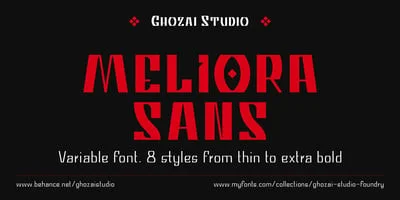
Meliora Sans Font
Meliora Sans Font is ideal for progressive organizations, continuous improvement consultancies, educational institutions, motivational speakers, self-development platforms, innovation companies, forward-thinking corporate brands, and aspirational lifestyle communications requiring growth-oriented messaging.
What makes Meliora Sans Font exciting is its aspirational excellence that embodies the pursuit of betterment and continuous improvement through refined, forward-moving letterforms. This inspiring typeface features clean geometric construction with optimistic proportions that evoke progress, growth, and the relentless pursuit of excellence, making it perfect for brands seeking to communicate advancement, development, and the inspiring journey toward better outcomes in their motivational communications.
The Meliora Sans Font family includes multiple weights from light to bold, plus comprehensive character sets and progressive typography elements that enhance the improvement aesthetic with growth-focused styling and advancement-oriented design elements for aspirational applications.
This inspiring typeface delivers exceptional motivational appeal and progressive sophistication, making Meliora Sans Font an essential resource for improvement-focused and educational projects. The font's aspirational character makes it perfect for organizations wanting to convey continuous growth and excellence pursuit in their brand identity. Educational institutions and personal development companies particularly value its ability to communicate progress and improvement instantly to audiences seeking betterment and advancement. The optimistically designed letterforms ensure excellent readability while preserving the inspiring appeal of continuous improvement across all applications from motivational materials to corporate development programs. Whether you're creating content for leadership training or developing branding for innovation consultancies, this font provides the perfect combination of aspirational authenticity and commercial effectiveness. Creative professionals consistently choose this typeface for projects requiring that ideal balance of motivational messaging and professional credibility, making it invaluable for communications that celebrate both personal growth and organizational excellence in today's improvement-focused professional landscape.